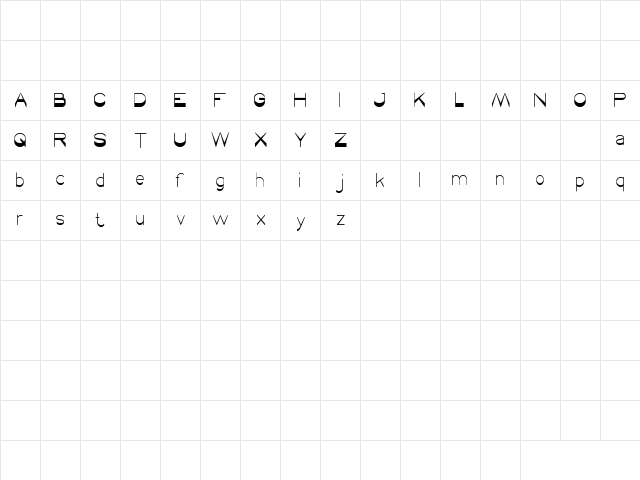
WINNER Regular Free Font
WINNER Regular
Design Context for WINNER
WINNER is a composed and adaptable typeface that performs quietly and consistently across a wide range of design contexts.
Pro Tip: Use WINNER in both headline and body roles to test its range before committing to a single application.